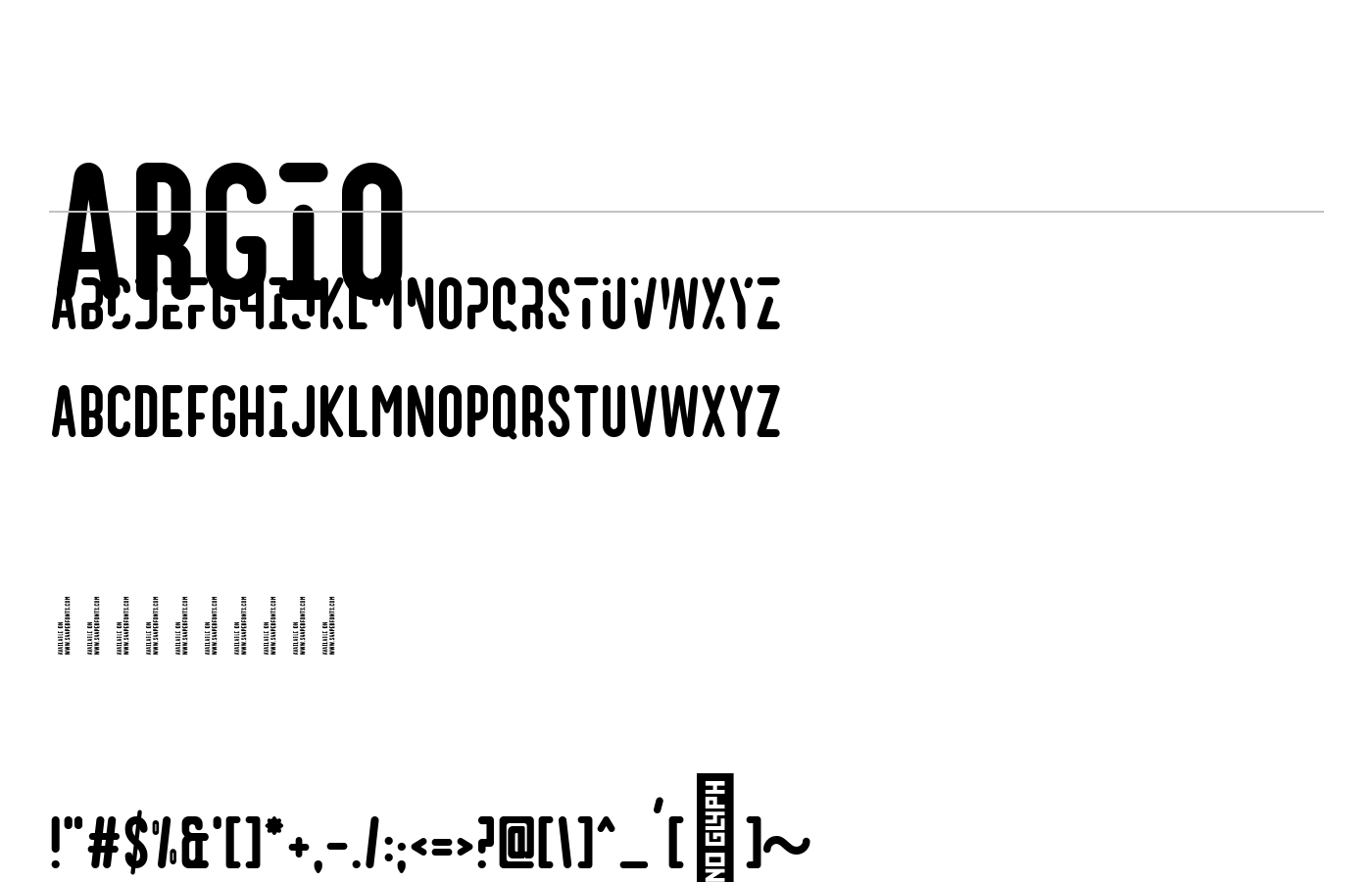
Argio is a condensed sans serif font characterized by its tall, narrow letterforms and rounded terminals, giving it a modern yet approachable feel. Its consistent stroke weight with subtle curves lends a clean, streamlined look ideal for contemporary branding and display purposes. This font works well in logos and headlines where space is limited but impact is needed, providing a stylish and efficient typographic solution.
Argio Font